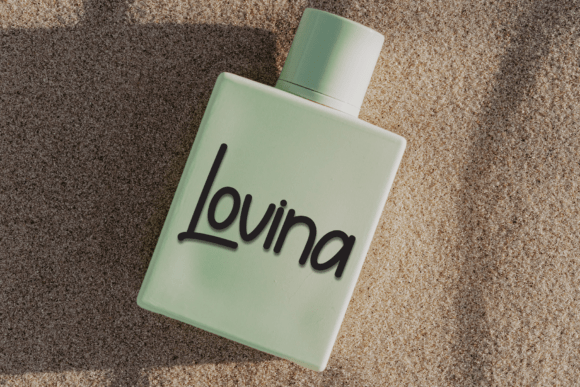
Buttercup Font: Add a Dash of Whimsy to Your Designs
Are you looking for a font that can add a touch of playfulness and charm to your designs? Look no further than the Buttercup Font! This delightfully charming handwritten display font is perfect for crafting heartwarming wedding invitations, endearing cards, or any design project that calls for a sprinkling of fun.
What Makes Buttercup Font So Special?
The Buttercup Font is a playful and personable typeface that dances delightfully off the page. Its unique and whimsical design makes it an irresistible choice for designers who want to add a touch of personality to their creations. With its sweet and friendly vibe, this font is sure to infuse your designs with a spirit of joy and spontaneity.
- Handwritten display font: The Buttercup Font is a carefully crafted handwritten display font that is perfect for headlines, titles, and other design elements that need a personal touch.
- Playful and personable: This font has a playful and personable design that makes it perfect for designs that need a touch of whimsy and charm.
- Perfect for wedding invitations and cards: The Buttercup Font is an excellent choice for crafting heartwarming wedding invitations, endearing cards, and other designs that require a personal touch.
How to Use Buttercup Font in Your Designs
The Buttercup Font is a versatile typeface that can be used in a variety of design projects. Here are some ideas to get you started:
- Wedding invitations: Use the Buttercup Font to create beautiful and unique wedding invitations that will set the tone for the big day.
- Cards and stationery: Add a personal touch to your cards and stationery with the Buttercup Font’s playful and charming design.
- Social media graphics: Use the Buttercup Font to create eye-catching social media graphics that will help your brand stand out.
- Branding and packaging: Add a touch of whimsy and charm to your branding and packaging with the Buttercup Font.
The Benefits of Using Buttercup Font
The Buttercup Font offers a range of benefits that make it an excellent choice for designers. Here are some of the advantages of using this font:
- Unique and eye-catching: The Buttercup Font has a unique and eye-catching design that will help your designs stand out from the crowd.
- Easy to read: Despite its playful design, the Buttercup Font is easy to read and understand, making it perfect for designs that require a personal touch.
- Versatile: The Buttercup Font can be used in a variety of design projects, from wedding invitations to social media graphics.
- Time-saving: With the Buttercup Font, you can create professional-looking designs in no time, saving you time and effort.
Tips and Tricks for Using Buttercup Font
Here are some tips and tricks for using the Buttercup Font in your designs:
- Use it sparingly: While the Buttercup Font is a beautiful and charming font, it’s best to use it sparingly to avoid overwhelming your design.
- Pair it with other fonts: The Buttercup Font pairs well with other fonts, so don’t be afraid to experiment with different font combinations.
- Experiment with colors: The Buttercup Font looks great in a variety of colors, so don’t be afraid to experiment with different colors and shades.
- Pay attention to spacing: Make sure to pay attention to spacing when using the Buttercup Font, as it can affect the overall look and feel of your design.
In conclusion, the Buttercup Font is a delightfully charming handwritten display font that is perfect for designers who want to add a touch of whimsy and charm to their creations. With its playful and personable design, this font is sure to infuse your designs with a spirit of joy and spontaneity. Whether you’re creating wedding invitations, cards, or social media graphics, the Buttercup Font is an excellent choice.